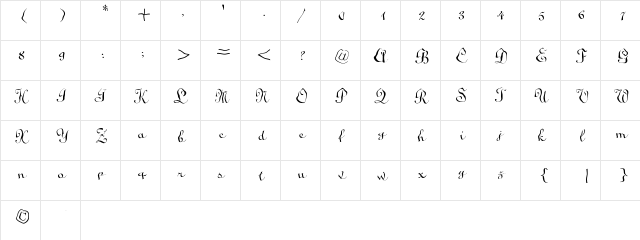
Lampery Regular
Design Context for Lampery Typeface
Lampery is a composed and adaptable typeface that performs quietly and consistently across a wide range of design contexts.